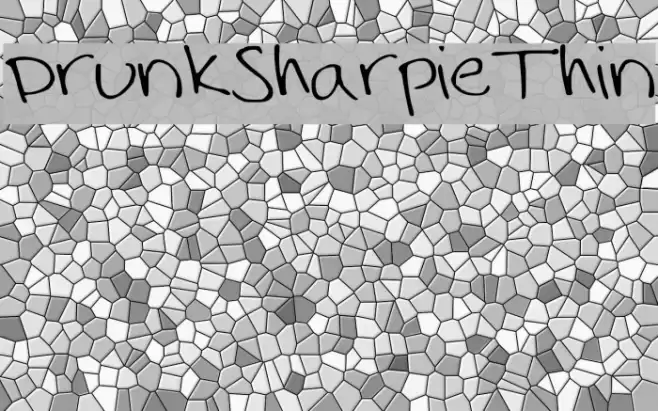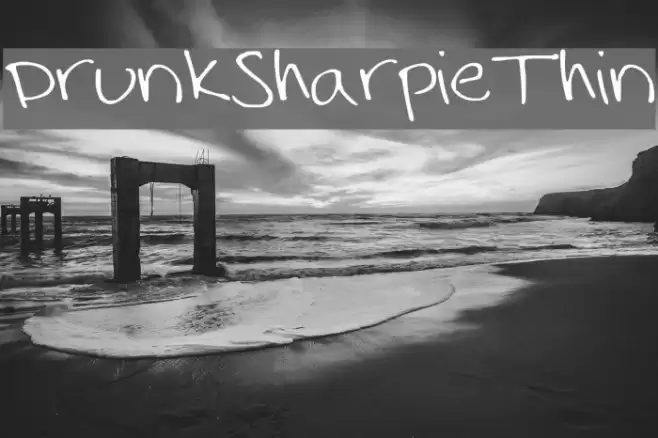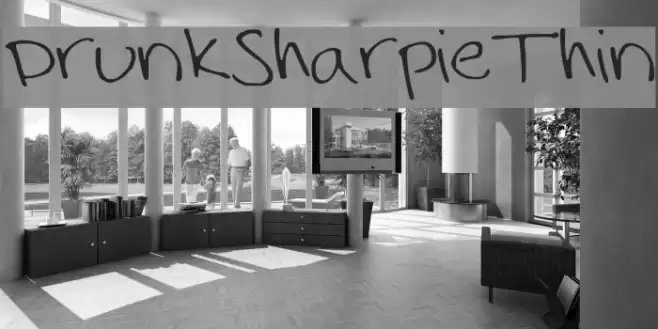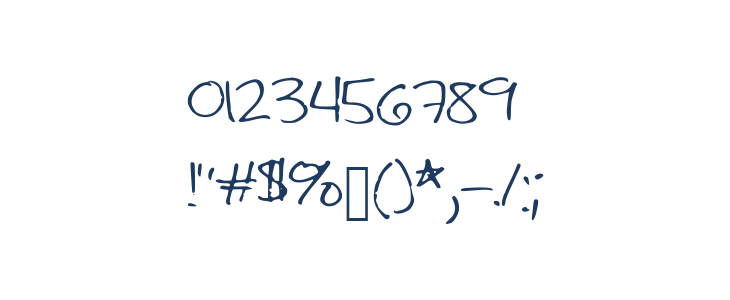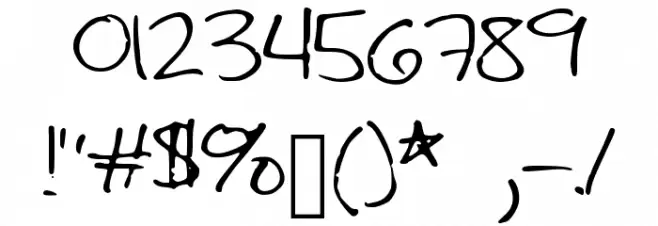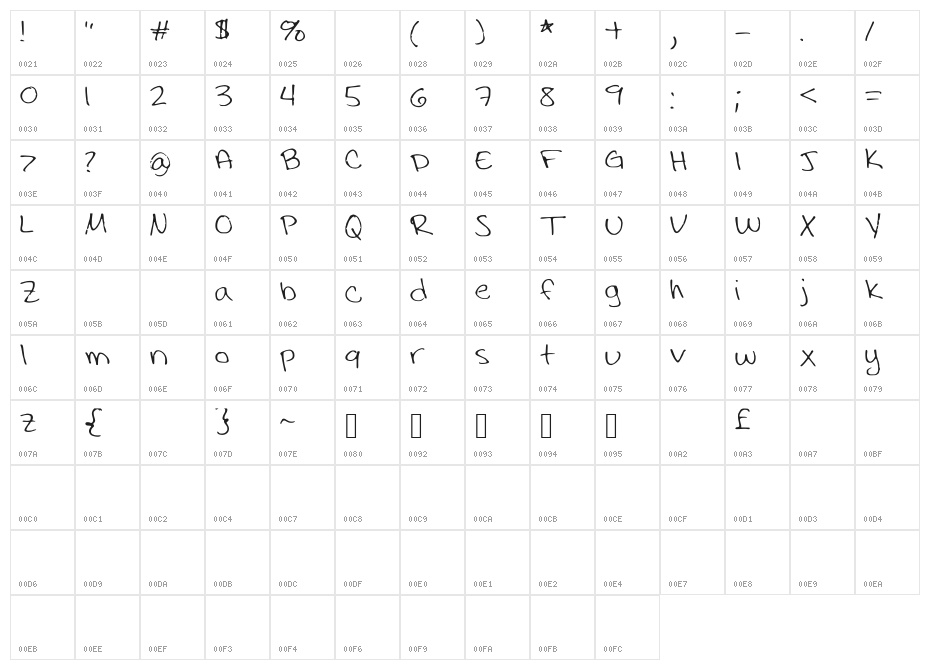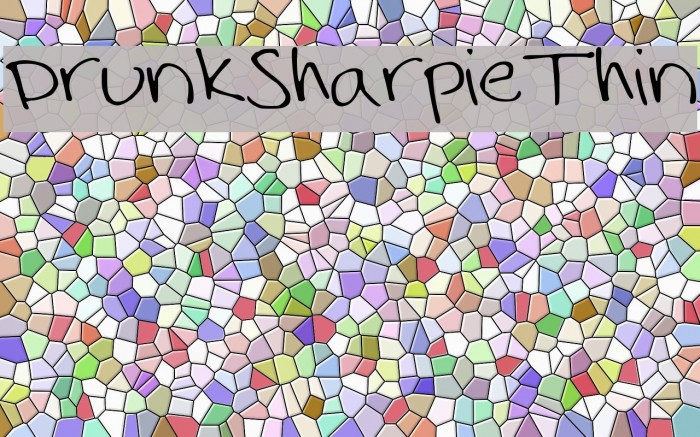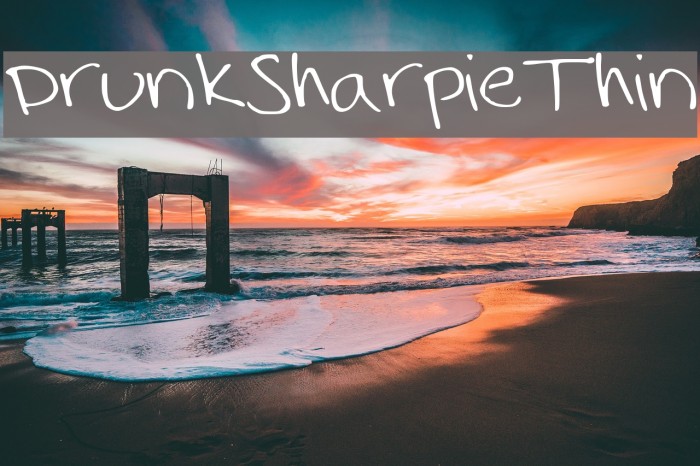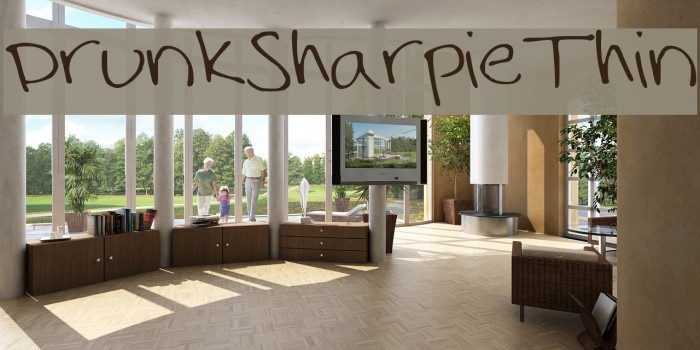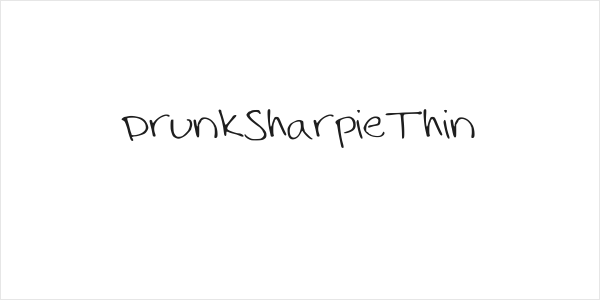
DrunkSharpieThin Font
DrunkSharpieThin Description
This font exhibits a playful and casual handwritten style, reminiscent of writing with a marker. The characters are slightly irregular, adding to its informal and approachable feel. The uppercase and lowercase letters are well-balanced, with a consistent stroke width that maintains readability. Numbers and special characters follow the same whimsical style, making them suitable for creative projects. The overall appearance is lively and energetic, perfect for designs that aim to convey a sense of fun and spontaneity.
A playful, handwritten font with a casual, marker-like style from Handwritten fonts.
- Proposed Projects: Ideal for greeting cards, children's book illustrations, casual branding, and social media graphics.
- Overall Style: Casual, Playful
- Use Case: Logos, Headlines, Informal Text